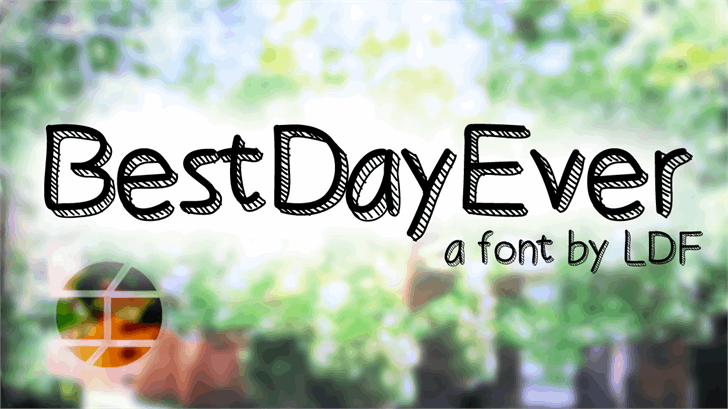
Free BestDayEver Font
Featuring the adorable free bestdayever font. Font Space has created this amazing and beautiful typeface. Easily amaze your audience with this beautiful font and make your graphic designs pop up from the crowd.